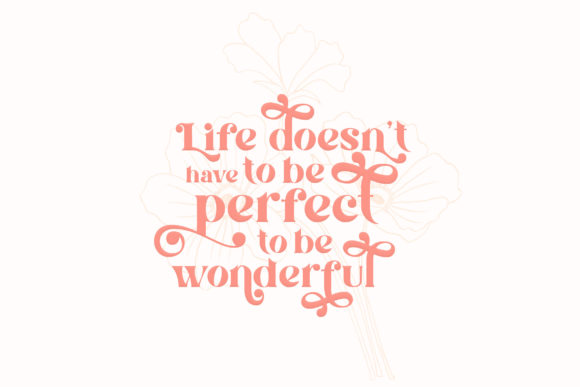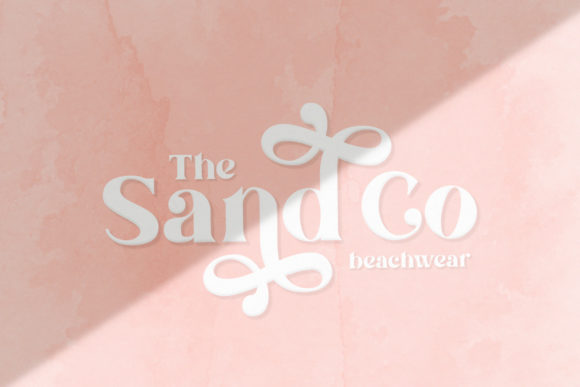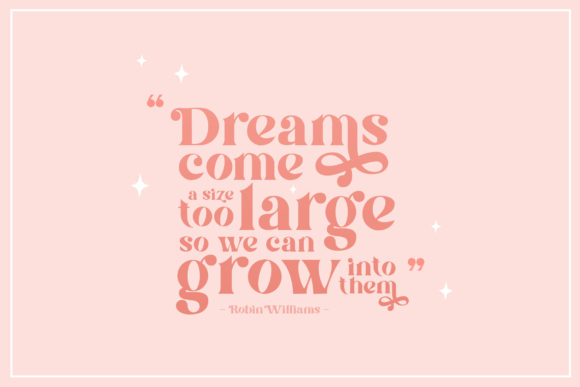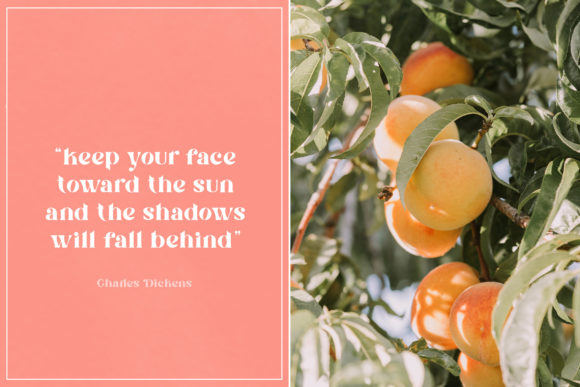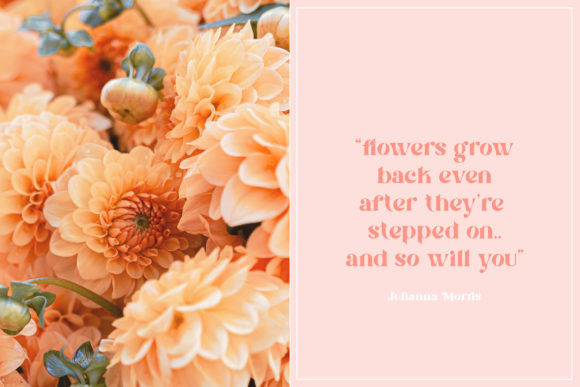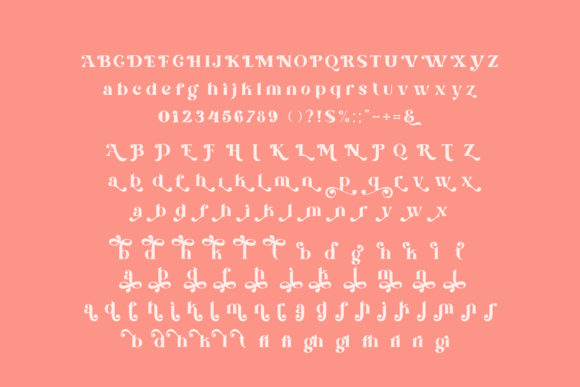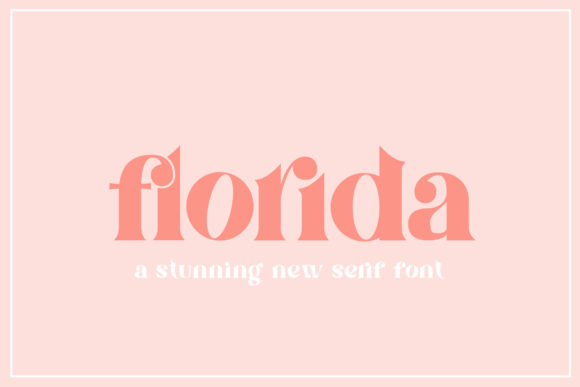
Discover the Ultimate Design Game-Changer: Florida Font
Are you tired of using the same old fonts in your designs? Look no further! Introducing Florida Font, a cool and thick lettered serif font that’s about to take your creations to the next level. With its perfect blend of trendiness and classic charm, Florida Font is the ultimate addition to any designer’s toolkit.
What Makes Florida Font So Special?
Florida Font boasts a unique combination of characteristics that set it apart from other fonts on the market. Its thick, bold lettering gives it a sturdy and dependable feel, while its serif details add a touch of sophistication and elegance. Whether you’re designing a logo, a brochure, or a social media post, Florida Font is sure to make your work stand out.
The Perfect Amount of Trendiness
One of the key benefits of Florida Font is its perfect balance of trendiness and timelessness. This font is not just a fleeting fad, but a versatile design element that will remain relevant for years to come. Its modern aesthetic is sure to appeal to designers and crafters who want to create fresh and exciting designs that capture the attention of their audience.
PUA Encoding: Unlocking Endless Design Possibilities
Florida Font is PUA (Private Use Area) encoded, which means that you can access a wide range of glyphs and swashes with ease. This feature allows you to experiment with different design elements and create unique, one-of-a-kind designs that showcase your creativity. With PUA encoding, you can:
- Access a vast library of glyphs and swashes to add visual interest to your designs
- Customize your text with ease, using a wide range of special characters and alternates
- Create stunning designs that showcase your brand’s personality and style
Endless Design Possibilities with Florida Font
So, what can you create with Florida Font? The possibilities are endless! Here are just a few ideas to get you started:
- Logos and branding materials: Use Florida Font to create a bold and memorable logo that sets your brand apart
- Social media graphics: Add a touch of style and sophistication to your social media posts with Florida Font
- Brochures and flyers: Use Florida Font to create eye-catching headlines and titles that grab attention
- Invitations and event materials: Add a touch of elegance and sophistication to your event designs with Florida Font
Why Designers and Crafters Love Florida Font
Florida Font has quickly become a favorite among designers and crafters, and for good reason. Here are just a few reasons why:
- High-quality design: Florida Font is designed to the highest standards, with clean lines and precise lettering
- Versatile: Florida Font can be used in a wide range of design projects, from logos and branding materials to social media graphics and more
Get Ready to Elevate Your Designs with Florida Font